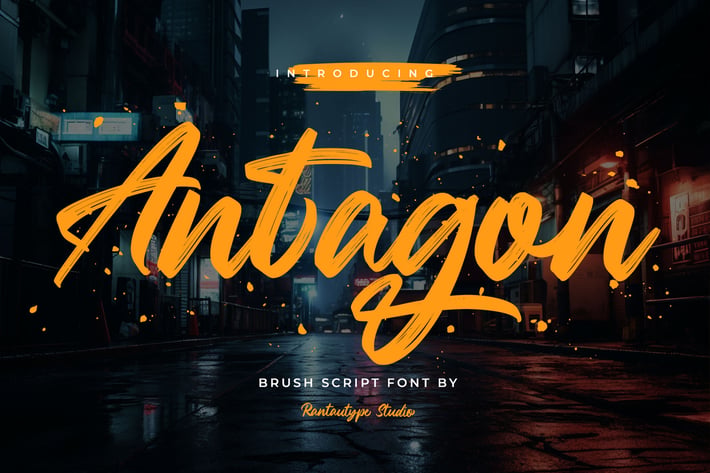
Antagon Brush Script Font
Antagon is brush script font with the natural flow scratches. Stylish and versetile is good combination for this font to make your design project more attractive.
Misellya is a perfect choice for any creative endeavor, chic, lifestyle design such as logos, advertisements, watermark on photography, stationery, branding project, display and magazine, invitation, corporate brand, product design, label, business project and many other project need handwriting taste.
Standart Glyphs
Ligature and alternate